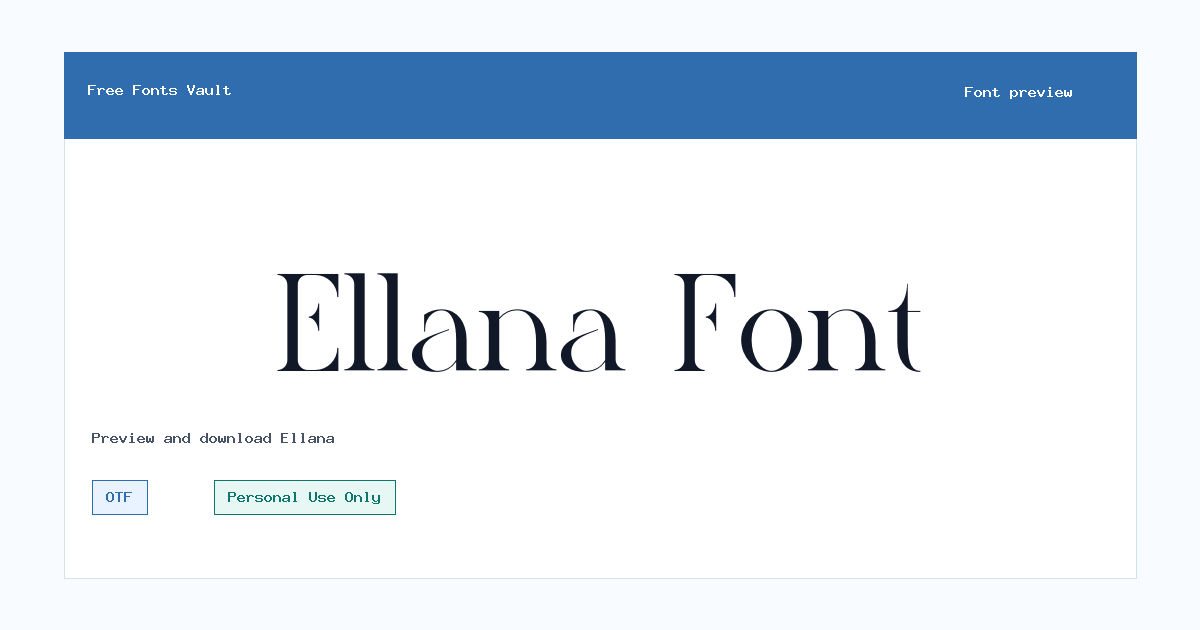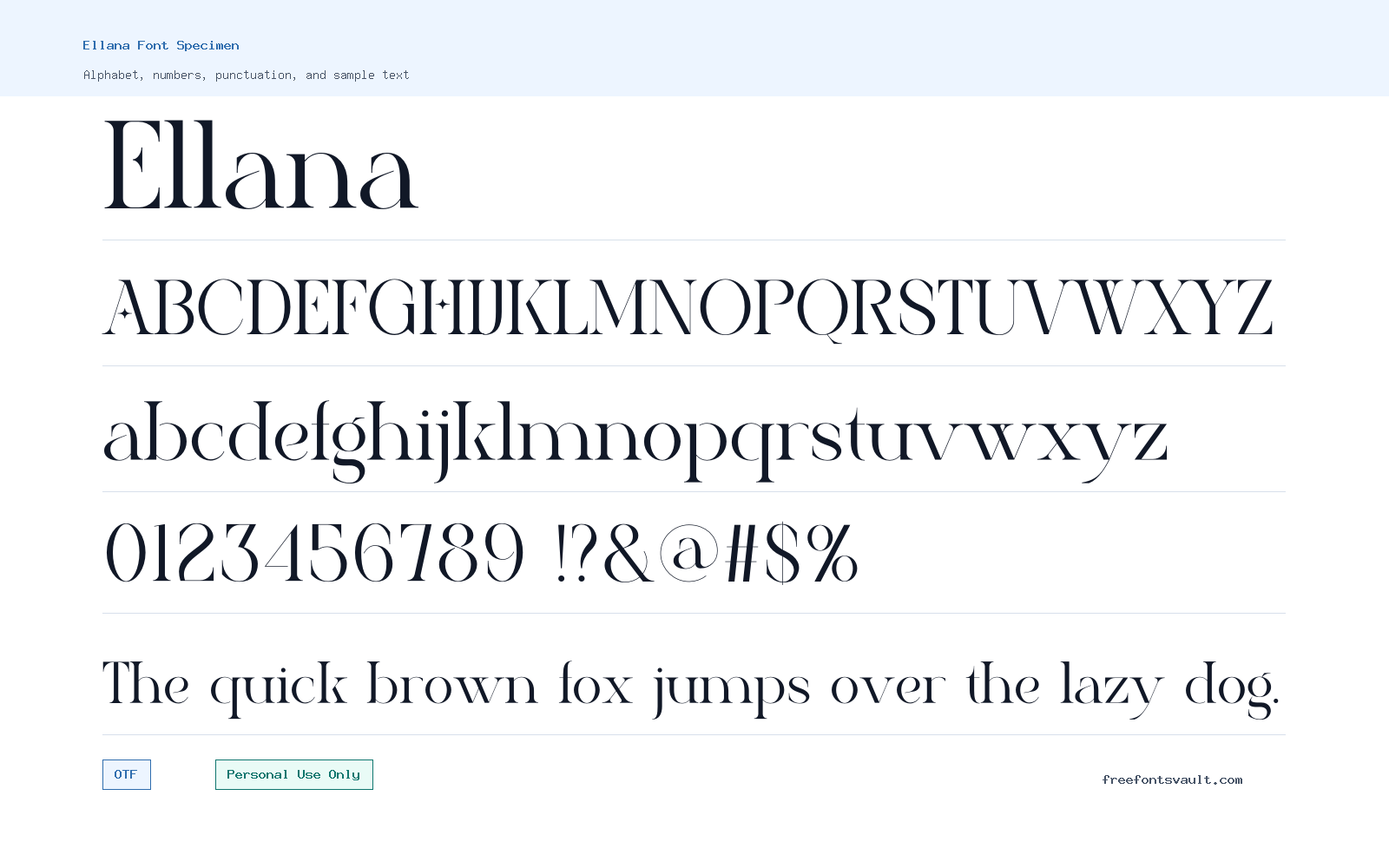
Ellana
Ellana is a serif font family with a regular OTF file for personal-use projects. It is a good choice to test when you want a clean serif look for display text, titles, invitations, or simple design mockups.
Ellana has a classic serif direction, so it works best when the text needs a more polished and composed feel than a plain sans serif. The available file is the regular style, which makes it easy to try in headings, short quotes, name layouts, and other places where a single weight is enough. Because there is no confirmed bold, italic, or extended family information for this listing, it is best to treat Ellana as a focused display option rather than a full typography system.
- Serif letter style suited to short, polished text such as headings, names, quotes, and display layouts.
- Personal invitations, greeting cards, title graphics, and quote images.
- Branding mockups, typography previews, social posts, and other non-commercial design tests.
What is Ellana best used for?
Ellana is best tested for short serif display text, such as titles, invitations, quotes, names, and personal design mockups.